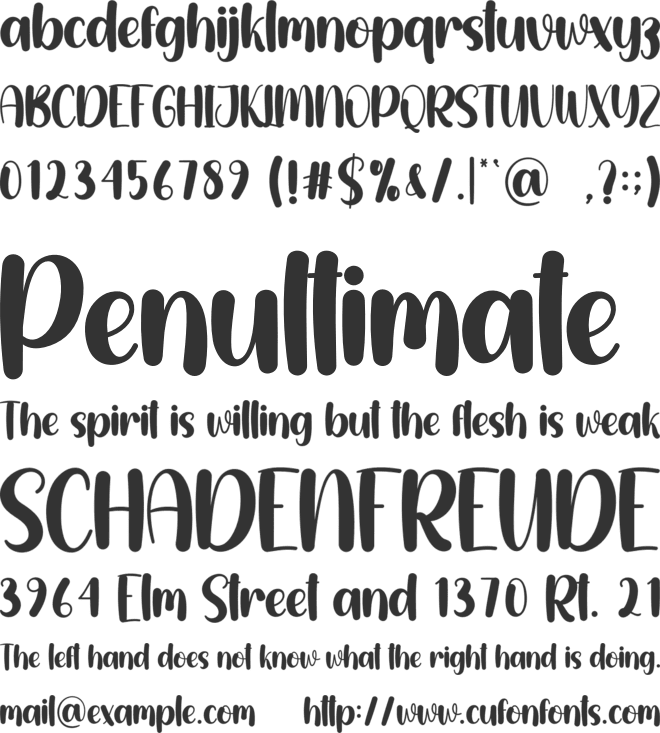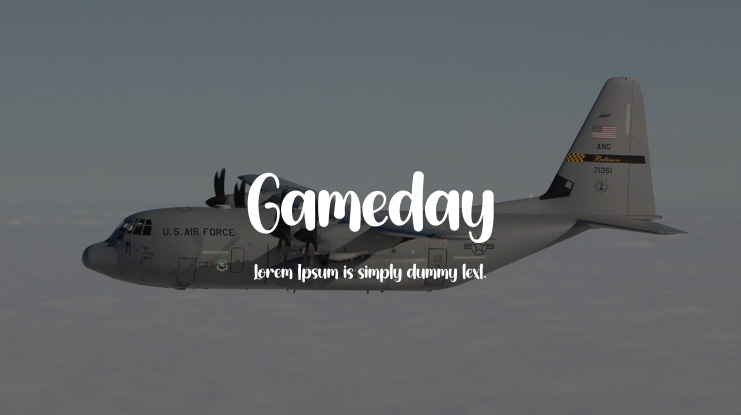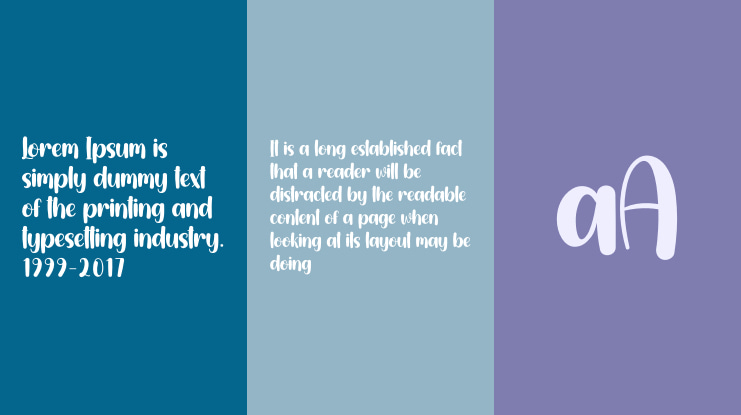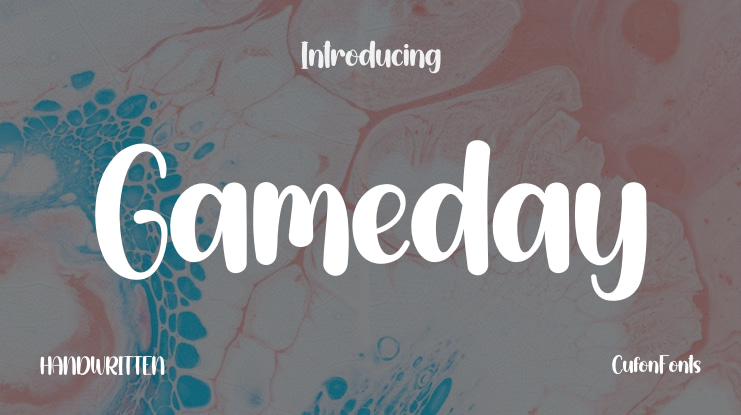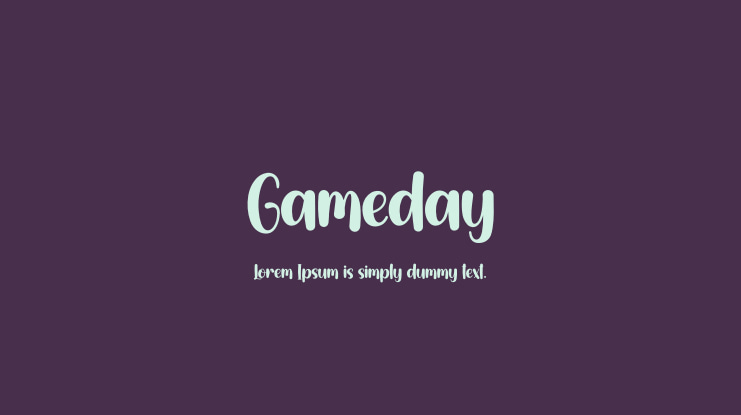
Our special creative products are designed to offer you an extraordinary experience. The latest style of lettering is perfect for a variety of uses, including:
- Wall displays - Wedding invitations - Social media post logos - Advertisements - Product packaging - Product designs - Labels - Photography watermarks - Invitations - Stationery - Any project that requires tasteful handwriting